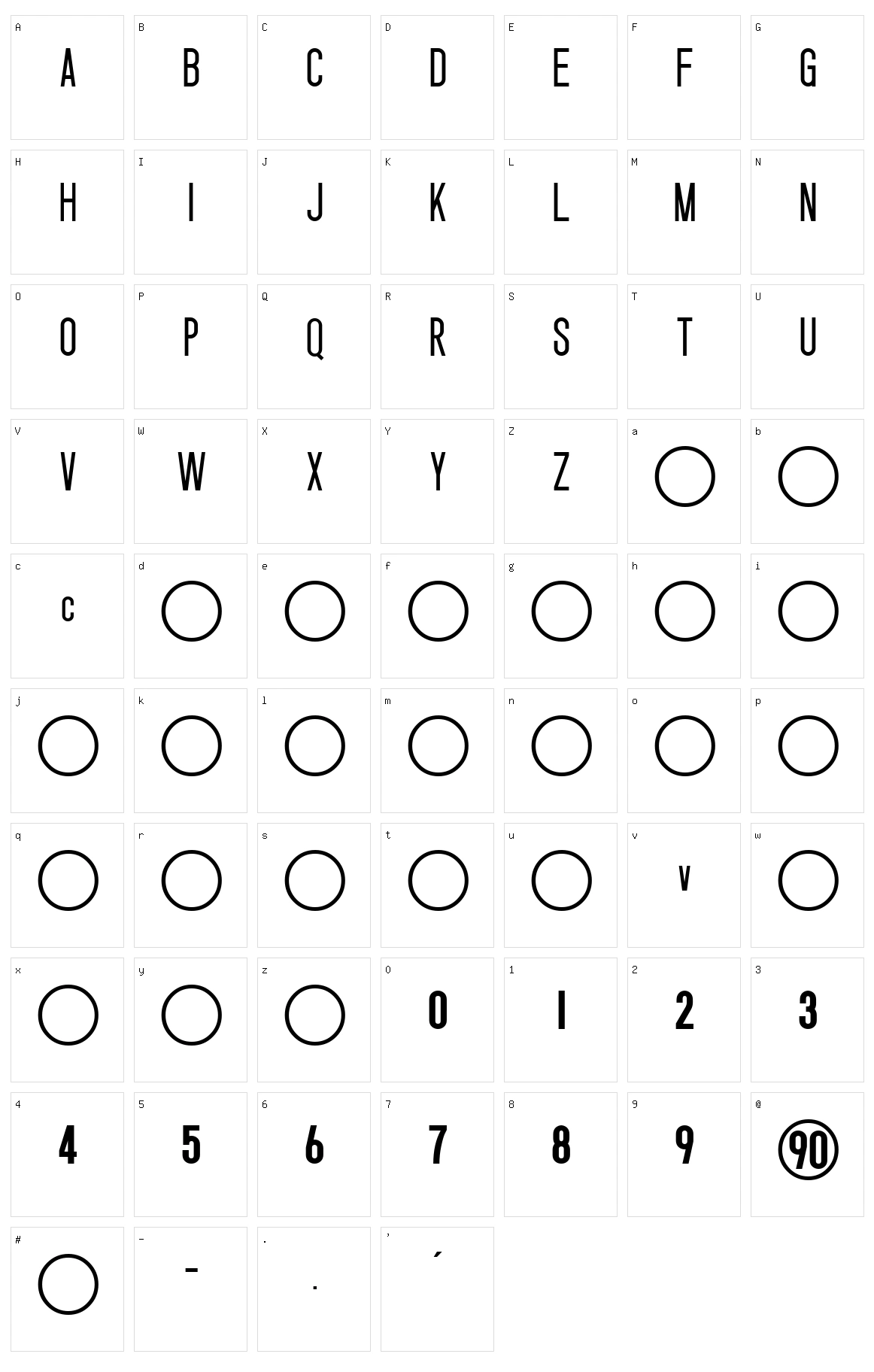
The free font Nike Total 90 is carefully designed by Daniel Gellatley, showcasing a thoughtful balance of creativity and usability and falls under the Sans serif font style. When you download the ZIP file, it contains only 8.81 KB of font files, making it lightweight and quick to download. Please review the license details below to understand permitted usage and distribution rights. If license information is not available, we recommend using this font for personal projects only or contacting the author directly for commercial usage permissions.